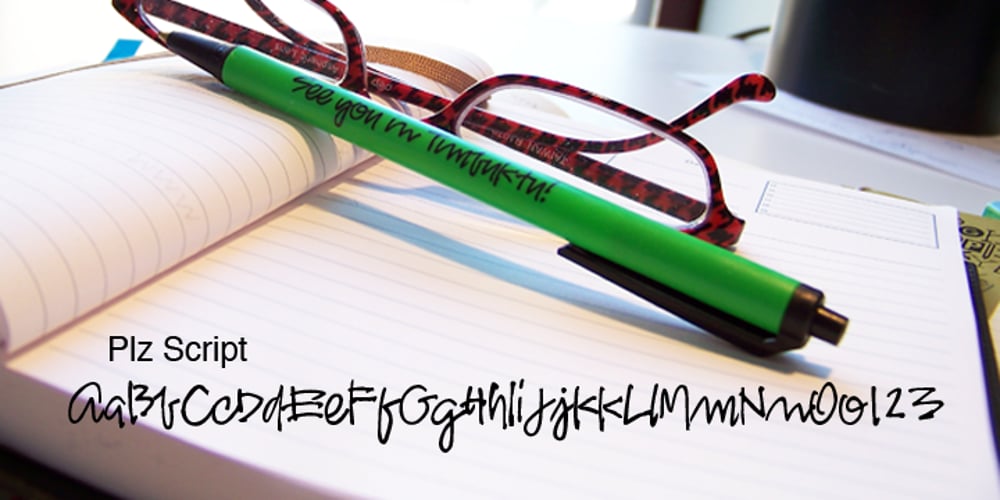
Plz Script
Plz Script font
Plz Script Font Family was designed by Rae Kaiser and published by Outside the Line. Plz Script contains 1 styles and family package options. Plz Script is a warm and friendly script font that can be used as body copy or for headlines. Great with Architectural Lettering or Plz Print. It can also be found in the book “Indie Fonts 3, a Compendium of Digital Type from Independent Foundries”.